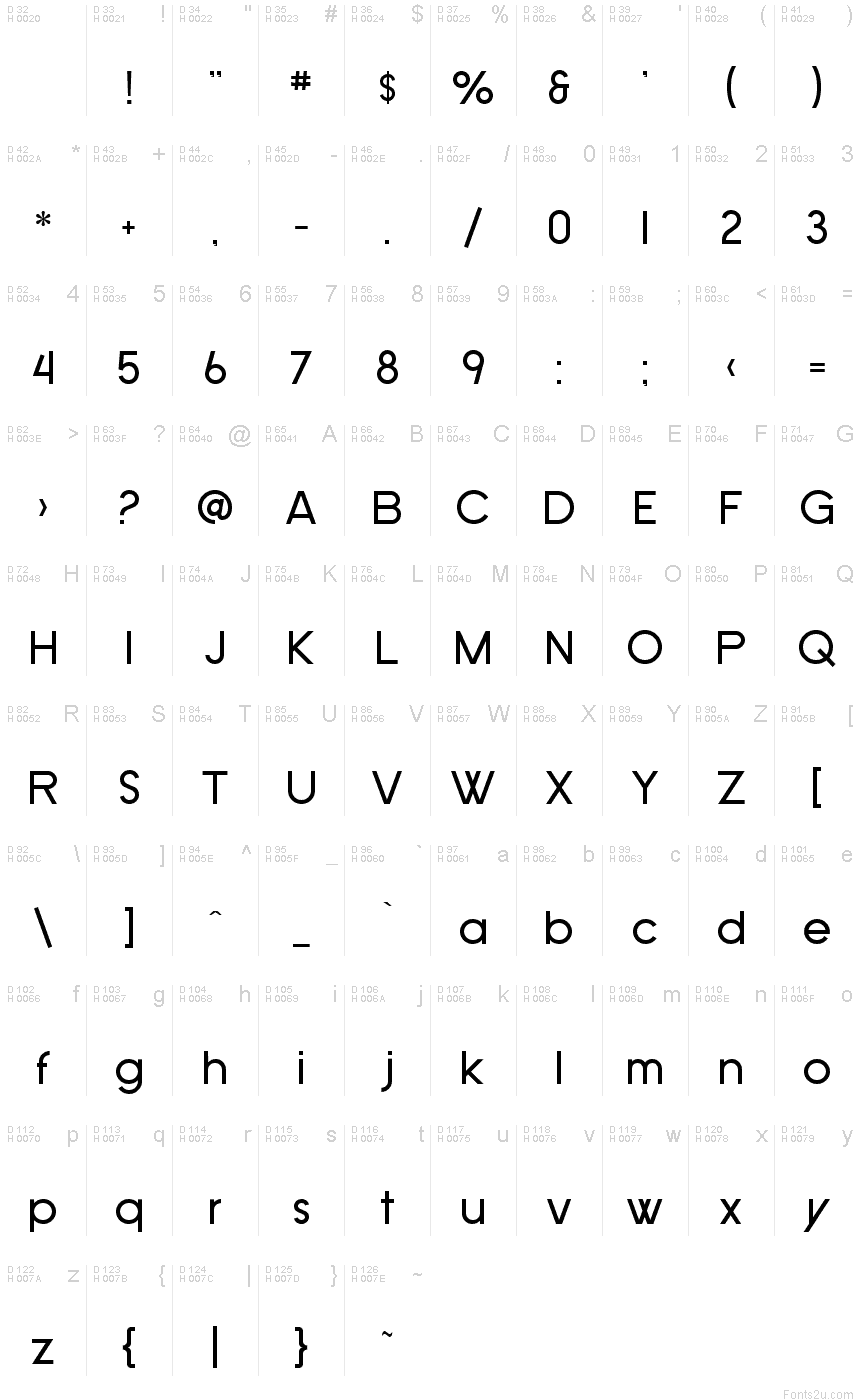
SF Old Republic by ShyFoundry is a free geometric sans serif with a sleek, near-futurist calm. The letters lean on clean circles and straight vertical cuts, giving the font a pared-back rhythm that feels cool and deliberate rather than neutral.
It fits naturally in branding, posters, interface headers, album covers, and title cards where a free font needs a modern voice without turning mechanical. Short headlines, logos, and monograms suit it especially well, because the broad round forms and simple strokes give even brief words a strong, self-contained shape.
SF Old Republic